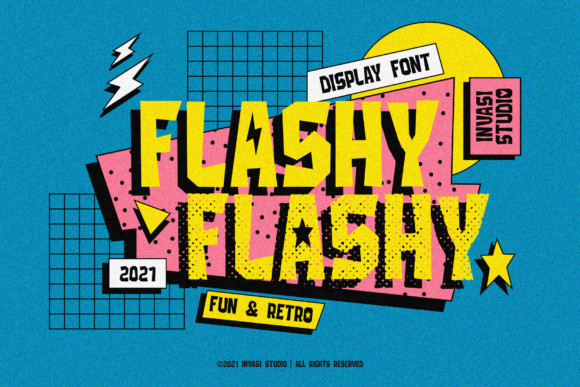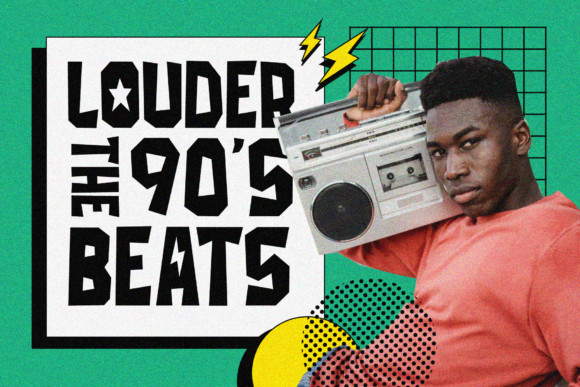
Flashy Font
Flashy is a fun retro display font. Its modern and quirky characters can be matched to a large set of projects, so add it to your creative ideas, and notice how it makes them stand out!